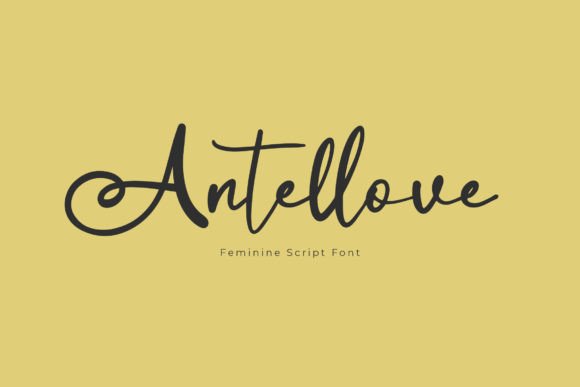
I still remember the countless hours I spent searching for the perfect font for a client’s wedding invitation project. The design brief called for something elegant, feminine, and sophisticated. I scrolled through font websites, tried out dozens of scripts, but nothing seemed quite right. That was until I stumbled upon Antellove, a charming script font that embodies a feminine style. In this article, I’ll share my experience with Antellove, its features, and how to make the most of this beautiful font.
First Impressions: What I Love About Antellove
Antellove is more than just a pretty face; it’s a versatile font that can elevate any design project. Here are some things I love about Antellove:
- ✨ Unique and beautifully crafted characters: Antellove boasts a distinctive style that’s both elegant and feminine.
- ✅ Perfect for adding a touch of elegance: Whether it’s a wedding invitation, a branding project, or a craft design, Antellove adds a level of sophistication that’s hard to match.
- 💫 Highly legible: Despite its script nature, Antellove remains clear and easy to read, even at smaller font sizes.
No font is perfect, and Antellove has a few quirks to keep in mind:
- 🤔 Limited use in very formal or corporate designs: Antellove’s playful, cursive nature might not be the best fit for very formal or corporate projects.
- ⚠️ Requires careful use of OpenType features: To get the most out of Antellove, you’ll need to familiarize yourself with OpenType features and glyphs.
The Story Behind Antellove
Antellove was designed with the intention of creating a font that embodies a feminine, elegant style. The designer aimed to craft a font that’s both beautiful and versatile, suitable for a wide range of design projects. While the designer’s inspiration is not well-documented, it’s clear that Antellove was created with love and attention to detail.